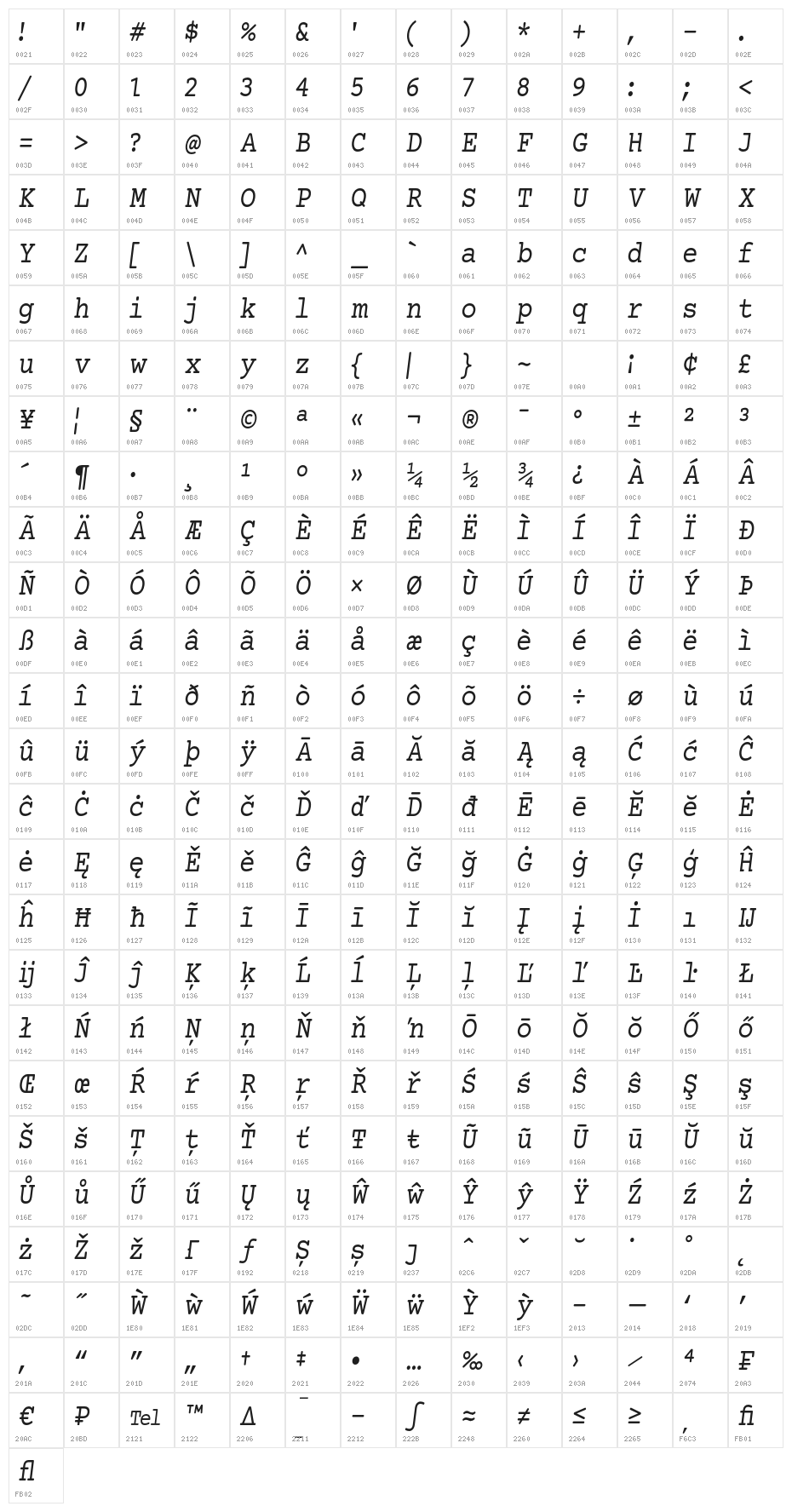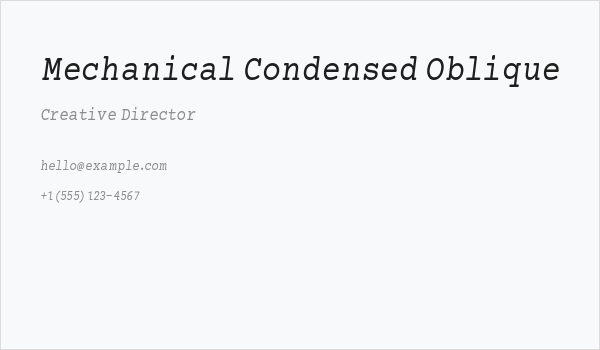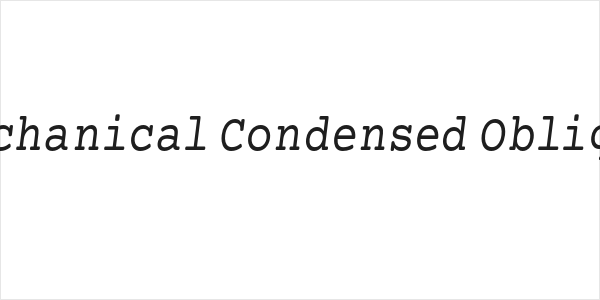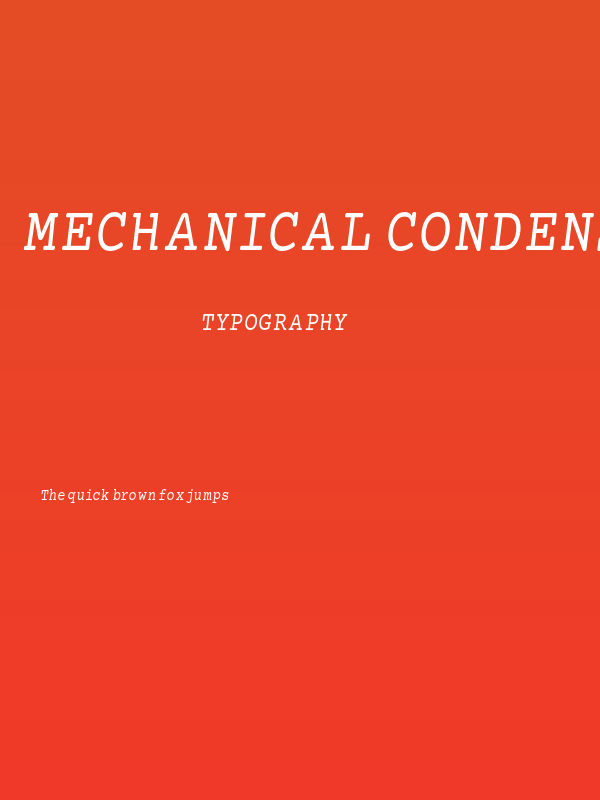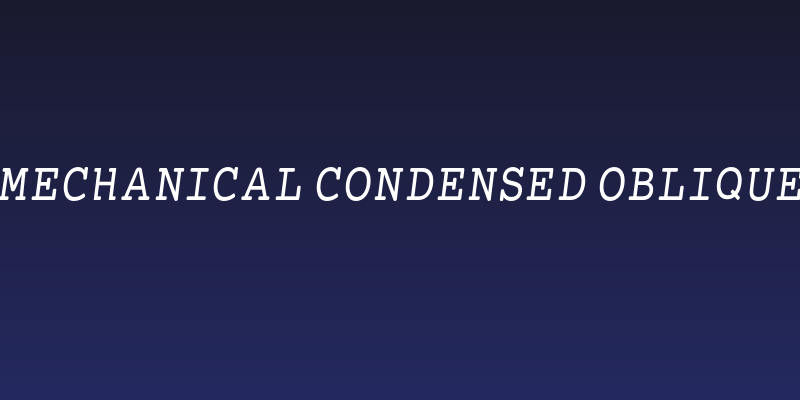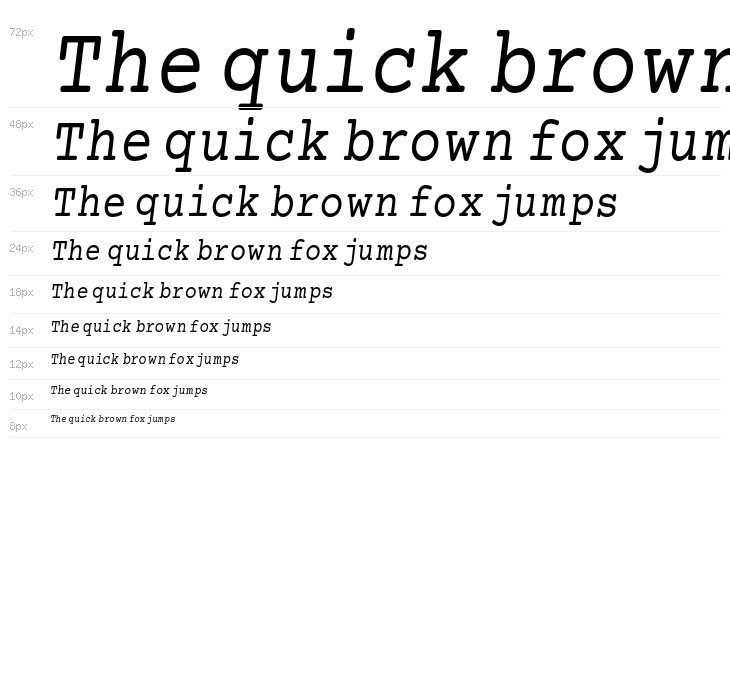
Mechanical Condensed Oblique Font
Mechanical Condensed Oblique Description
This font features a mechanical and condensed style with an oblique slant, giving it a dynamic and modern appearance. The characters are uniformly narrow, enhancing the condensed look, while the oblique angle adds a sense of motion and energy. The strokes are consistent in weight, providing a clean and precise aesthetic. The uppercase and lowercase letters maintain a uniform height, contributing to a cohesive visual flow. Numbers and special characters are designed to match the overall style, ensuring versatility across different uses. The font's mechanical nature makes it suitable for technical or industrial-themed projects.
| Use Case | Headlines, Logos, Technical documents |
| Proposed Projects | Ideal for technical manuals, industrial branding, modern posters, and dynamic web design. |